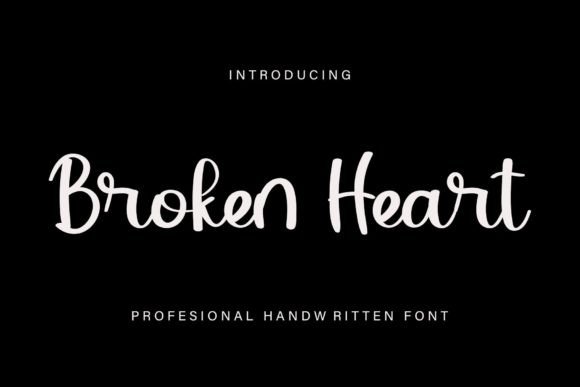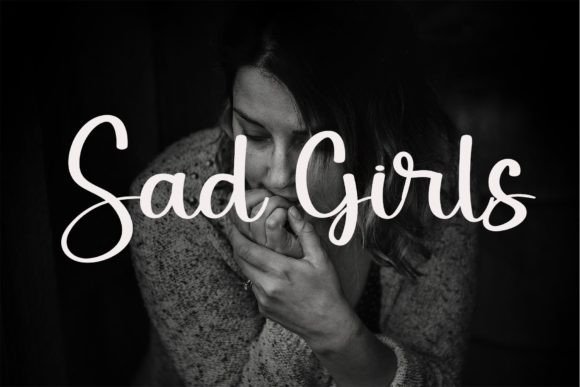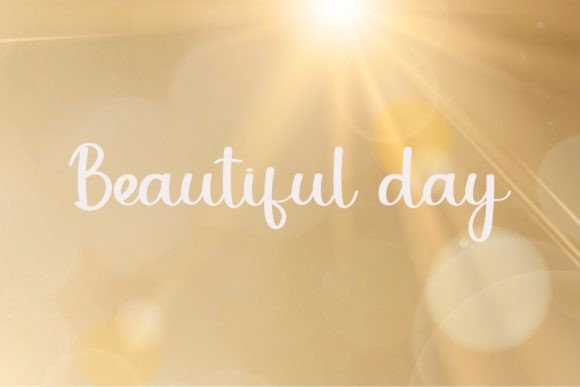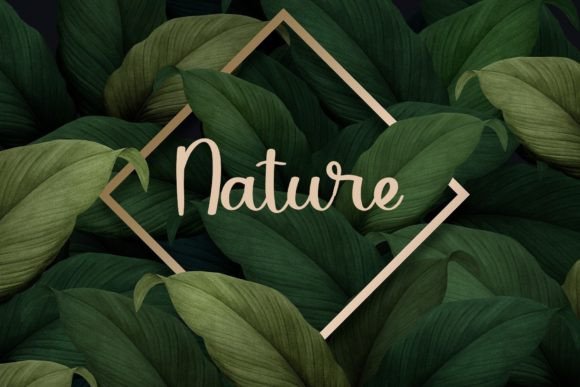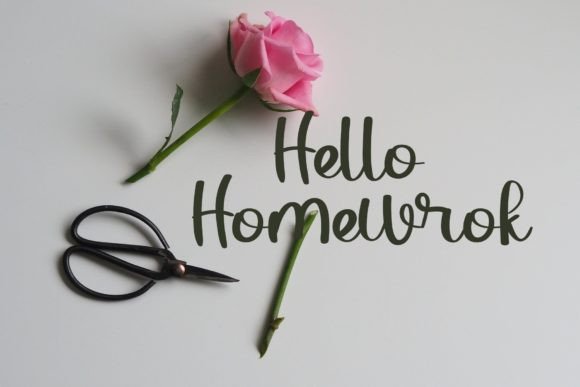
About Broken Heart Font
Broken Heart is a lively and friendly handwritten font designed to bring a sense of fun and charm to your creative projects. With its unique and playful charm, this font is crafted to turn any design idea into a standout creation. Let Broken Heart inspire you, and infuse its distinctive energy into your designs, creating lovely and memorable visuals.
The font’s fun and friendly nature make it a versatile choice for various design applications. Whether you’re working on branding, social media graphics, posters, T-shirts, invitations, or any other project, Broken Heart adds a lighthearted touch that captivates attention and creates a positive and inviting atmosphere.
Broken Heart’s handwritten style contributes to the creation of personalized and engaging designs. The playful characters and flowing strokes make it easy to infuse a sense of warmth and character into your messages, making them more relatable and appealing to your audience.
In the realm of branding, Broken Heart stands out as a font that conveys approachability and creativity. Whether you’re designing a logo, business cards, or promotional materials, Broken Heart’s fun and friendly demeanor add a distinctive flair to your brand identity, making it memorable and relatable.
Broken Heart’s versatility extends to various design contexts, making it an excellent choice for turning ordinary ideas into extraordinary designs. Its adaptability allows it to complement different visual styles and themes, giving you the flexibility to explore and experiment with your creative concepts.
In summary, Broken Heart is not just a font; it’s a design companion that brings joy and friendliness to your projects. Whether you’re creating branding elements, social media graphics, or any other design requiring a playful touch, Broken Heart’s fun and friendly handwritten style will help your ideas stand out and leave a lasting impression.